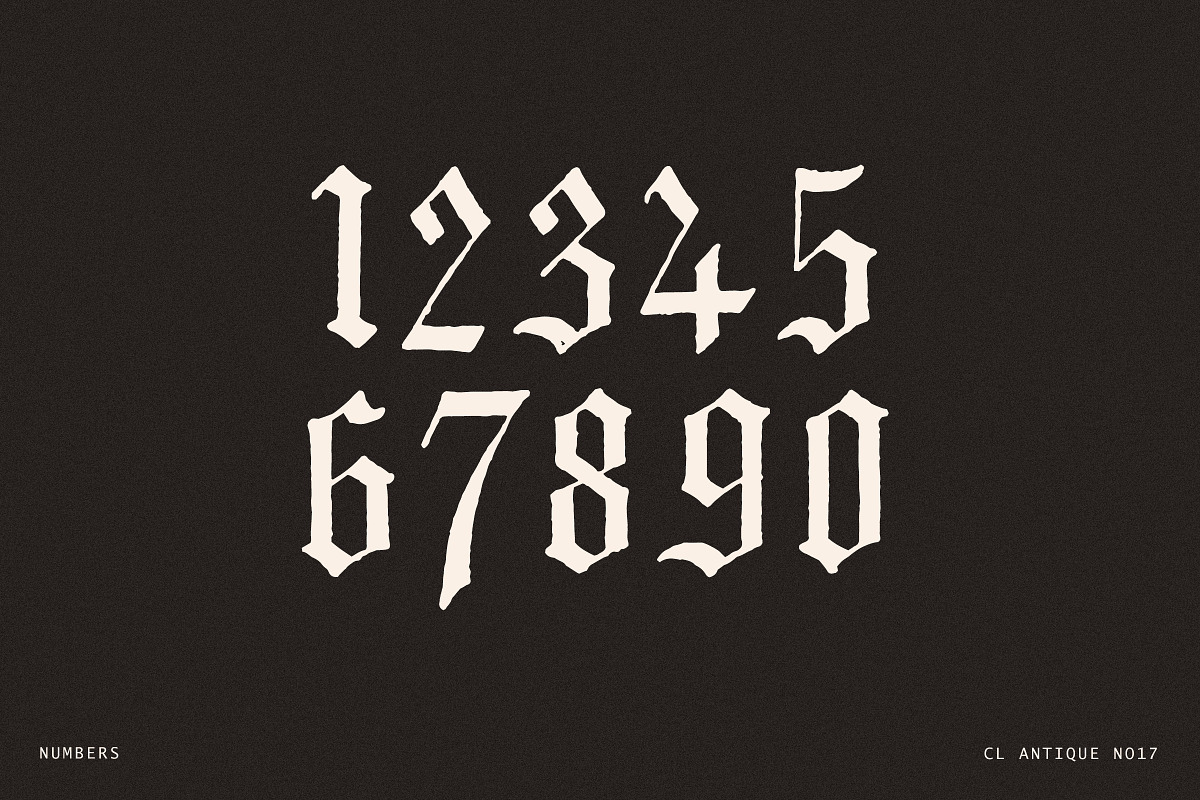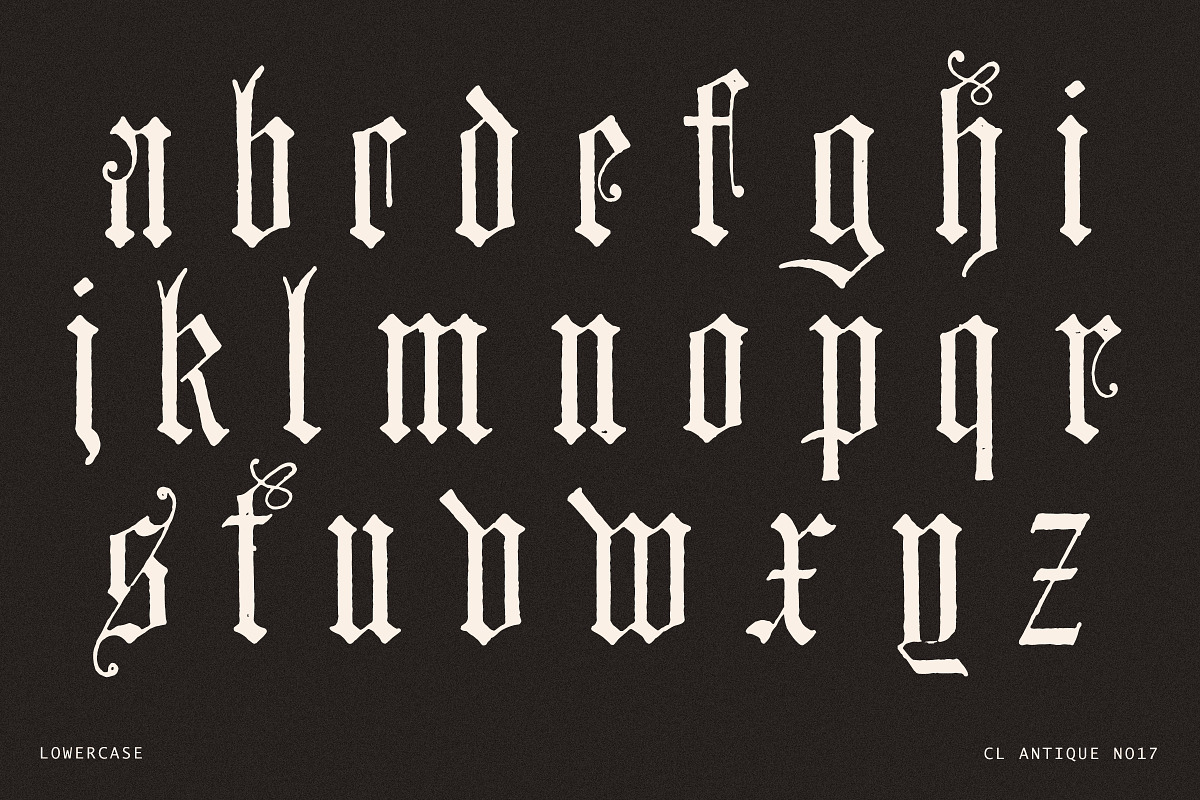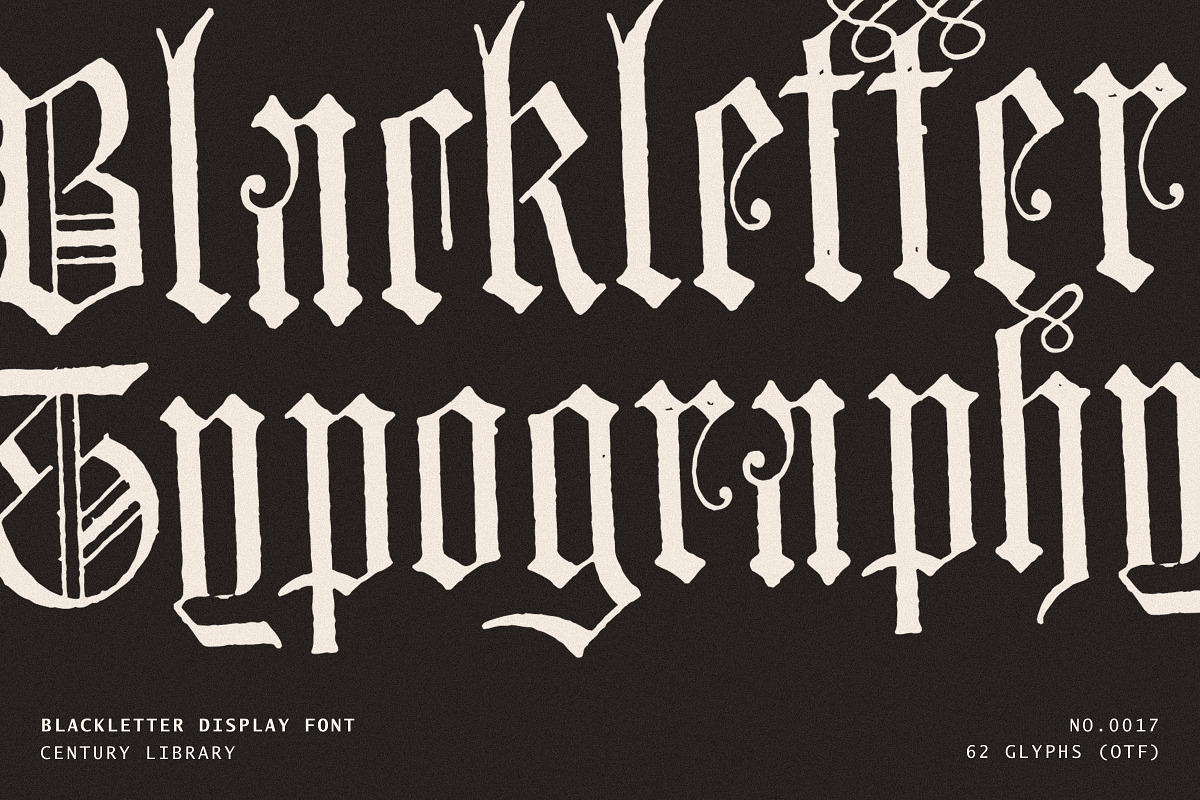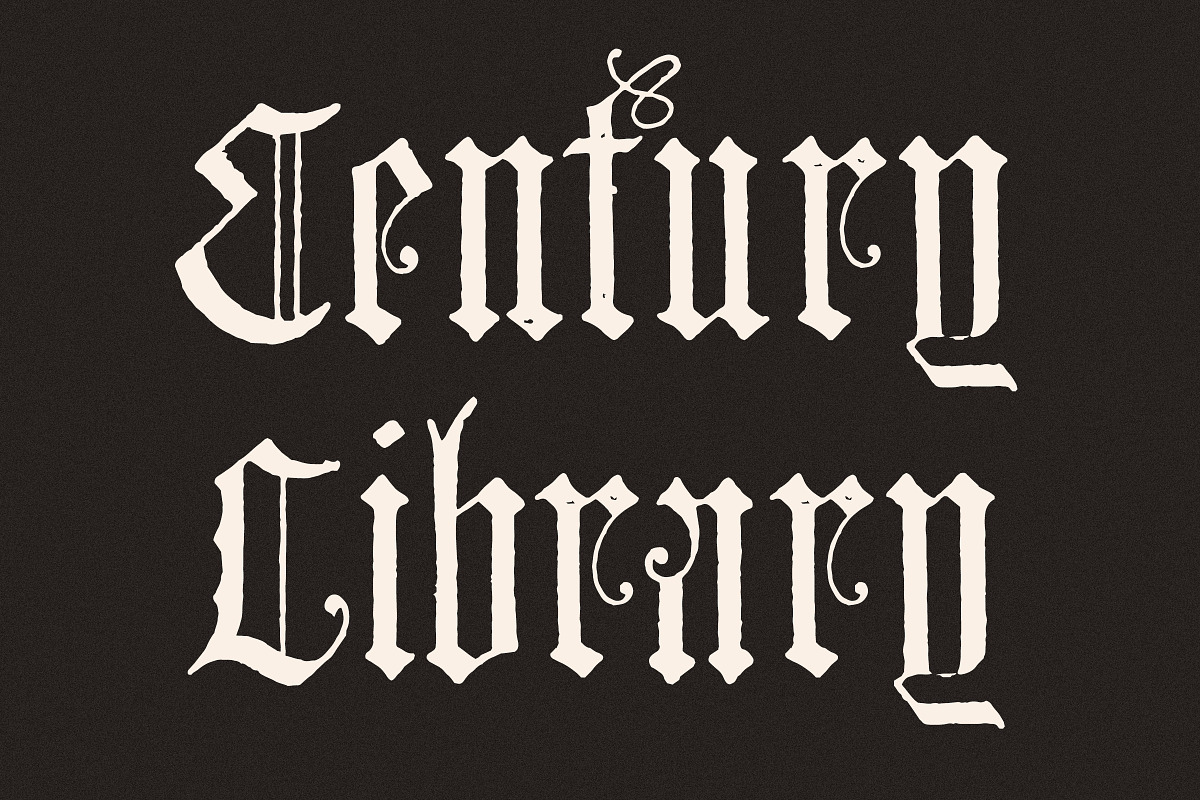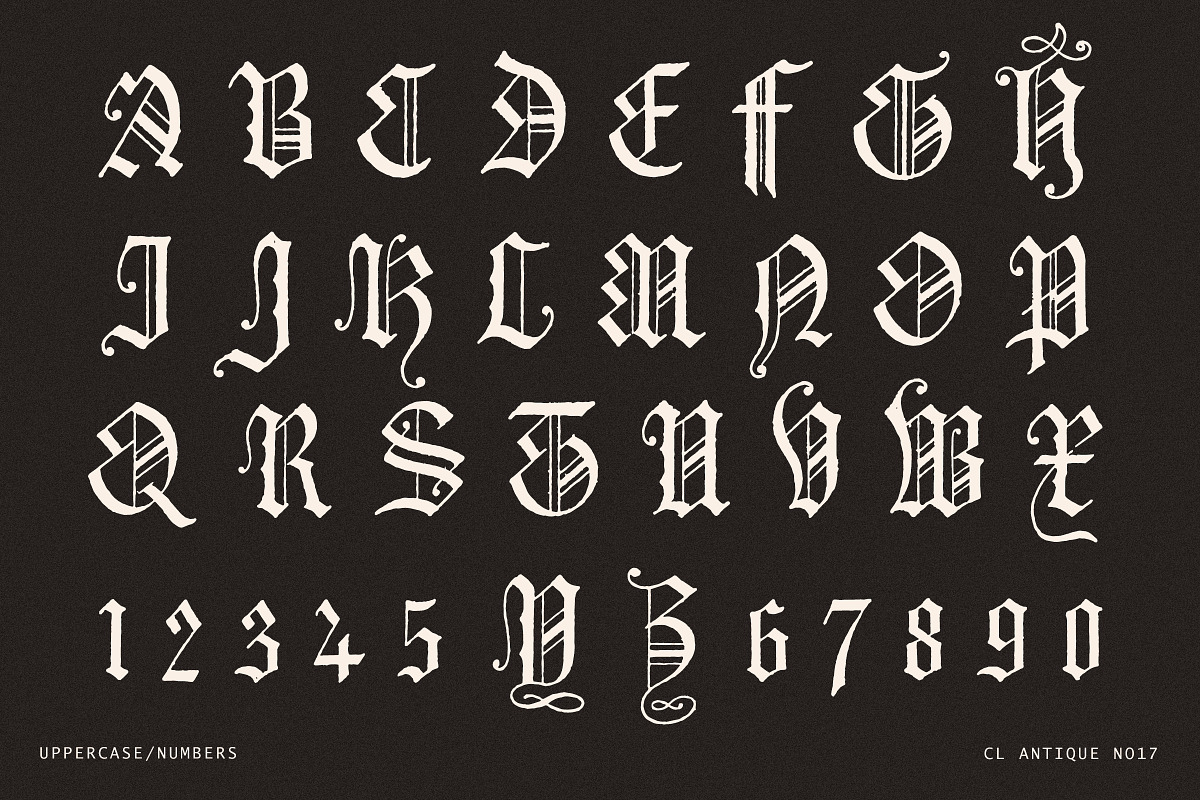
Vintage Gothic Blackletter Font No17
Introducing CL Antique No.17 – a faithful restoration of an authentic gothic blackletter, straight from the pages of a 19th-century type design book.
Part of the Century Library archive, this typeface brings together sharp, angular forms, delicate curves, and printed textures, all carefully preserved and converted into a working OpenType font. Every character retains the rugged charm and slightly imperfect beauty of early gothic blackletter type, giving your designs a heavy dose of medieval drama with real historical depth.
No modern redraws here. These glyphs stay true to their origins – perfect for designers who want that genuine blackletter look without smoothing away the soul.
Ideal for posters, branding, tattoo designs, album covers, apparel, gothic themes, editorial layouts, or anything that needs a dark, bold, and timeless voice.